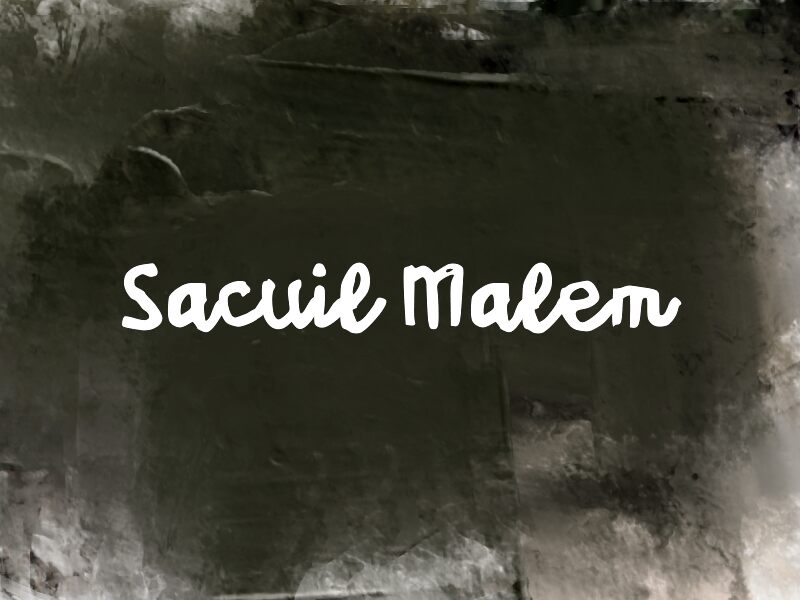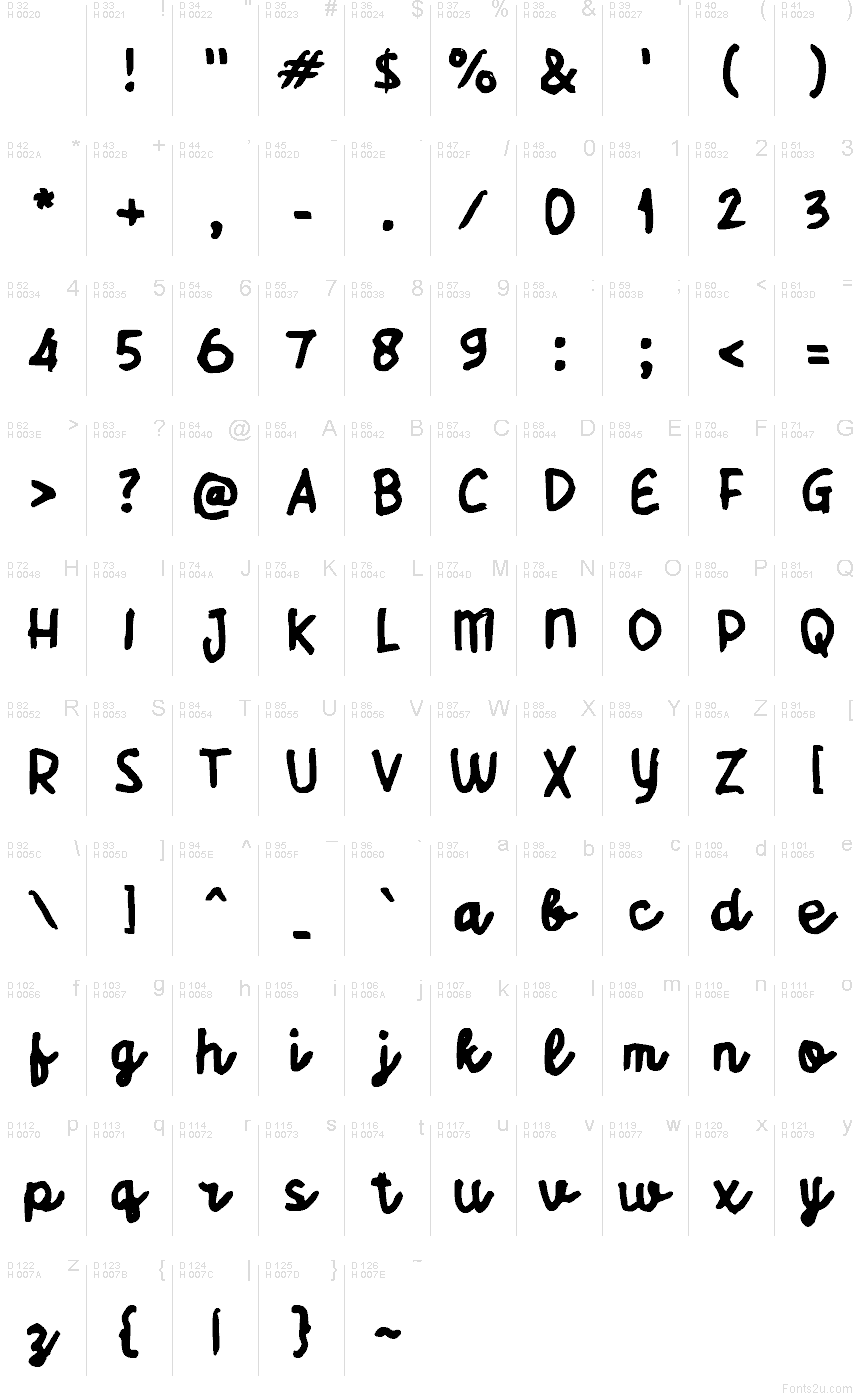
Sacuil Malem
Sacuil Malem font by wepfont.com is a free brush script typeface that captures the feel of thick, inky marker strokes dashed across paper. The letters are bold, slightly uneven, and full of motion, giving your words a hand-lettered energy that feels spontaneous rather than stiff or polished. Rounded curves and chunky forms make it easy to read even at smaller sizes, while the continuous flow of the script keeps everything feeling connected and lively.
Using Sacuil Malem, this free font shines on social media graphics, merch designs, casual logos, posters, quote graphics, packaging, and event flyers where you want a friendly, handwritten punch. It works beautifully in big, attention-grabbing headlines, paired with a clean sans serif for body text to keep layouts balanced and readable.